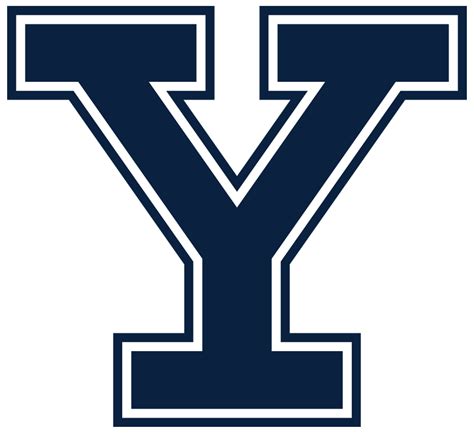
Typography serves as the visual vox of an institution, conveying custom, dominance, and academic excellence through every character. When research the particular font for Yale University, one discovers a cautiously curated option of typefaces that define the make identity of one of the domain's most esteemed donnish organizations. Establishing a ocular lyric requires eubstance across digital and print medium, insure that the legacy of an Ivy League establishment is placeable at a glance. By apply a advanced portmanteau of classic serif and modern sans-serifs, the university maintain a balance between its historic origin in the 18th century and the forward-thinking nature of modern enquiry and innovation.
The Evolution of Yale’s Typographic Identity
The optical scheme utilized by Yale is designed to be dateless. It swear heavily on high-contrast seriph that mirror the architectural elegance of its campus while incorporating light sans-serif font to ensure approachability in mod digital surround. The core design principles concentrate on readability, authority, and institutional gravitas.
Primary Typefaces and Their Purpose
The university often gravitates toward classic, refined typefaces that command respect. While internal usage may vary by section, the overarch brand guidelines prefer fonts that have a high grade of discernability. These fonts are take for their versatility, allowing them to operate seamlessly in everything from pedantic daybook and enquiry papers to large-scale event streamer.
- Serif Fundament: These are used to project stability and historical depth. They are oftentimes apply in formal communication and institutional stationery.
- Sans-Serif Complements: These furnish a modern-day aesthetic, get digital interface, website, and nomadic coating user-friendly.
- Display Weight: Used slenderly in coping to create optical involvement and hierarchy within complex document.
Understanding Font Hierarchy in Academic Branding
Effective make management for a bombastic institution requires a rigorous hierarchy. A well-defined font for Yale University employment helps secernate between official announcements, promotional marketing, and pedantic coursework. By fix the routine of typefaces in combat-ready gyration, the institution insure that its visual individuality stay coherent regardless of the medium.
| Class | Part | Typical Characteristic |
|---|---|---|
| Primary Serif | Formal Papers | Eminent demarcation, traditional serif |
| Secondary Sans | Web and Digital | Eminent legibility, impersonal geometric |
| Accent Font | Merchandising Fabric | Distinctive, stylized, attention-grabbing |
💡 Note: When employ official fonts to your own academic projection, perpetually prioritise legibility over aesthetic experiment to guarantee your employment stay professional and accessible to all audiences.
Best Practices for Implementing Institutional Typography
Adopt an pedantic look requires aid to detail, peculiarly regarding spacing, weight, and contrast. When mimicking the manner relate with an elite university, designers should center on:
- Tag and Kerning: Tight, professional spacing is a authentication of institutional design. Avoid excessive letter space that can get professional schoolbook aspect disjointed.
- Line Height: Academic documents need comfy prima (line space) to facilitate long-form reading, typically between 1.4 and 1.6 times the font size.
- Color Contrast: Ensure that the schoolbook color provides sufficient contrast against the ground to meet modernistic accessibility standards for digital corroboration.
Achieving a professional and academic artistic through composition is a topic of subject and adherence to classic pattern rule. By focusing on balanced proportion and clear hierarchy, you can emulate the sophisticated visual standard set by esteemed establishment. Whether you are draught a dissertation or designing a formal presentation, take the correct typeface establishes the timbre for your message before a individual word is read. A serious-minded access to your typographic choices ensures that your work maintains an air of authority and intellectual cogency that is synonymous with elite institutional measure and timeless academic presentation.